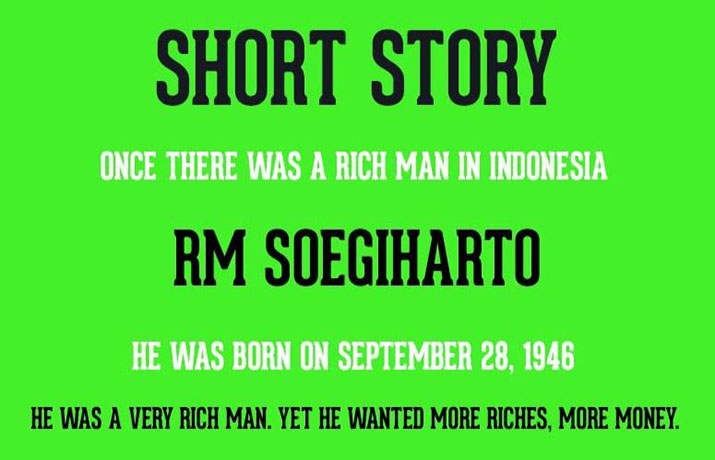
Geared Slab Bold Font is a display slab serif typeface with a condensed industrial texture. Ben Dalrymple is known as the primary designer of this font in 2011.
This font family is available in four weights: Light, Regular, Bold, & Extra Bold. It consists of 211 glyphs like uppercase & lowercase letters, symbols, and punctuation. And, it also supports 64 languages.
The designer has to use solid strokes to build its texture for display and printing tasks. This is why each letter is uniquely designed just to fill and maintain space.
All the letters are properly managed with clean strokes to give a professional look only. This is why they can also be used with other serif and sans serif fonts in font pairing situations.
- Uppercase & lowercase letters, numbers, symbols, and punctuation
- 211 unique glyphs
- 64 multilingual languages support
Style: | Slab Serif, Display, Typefae |
Font Designer: | Ben Dalrymple |
- It is a great option for various purposes, including branding projects, logo creation, social media posts, product packaging, product design, labels, headings, decorative elements, flyers, signs, banners, flyers, product packaging, branding, and titles. Designs, headers, signs, company names, stationery, cards, and any other project that requires high readability.